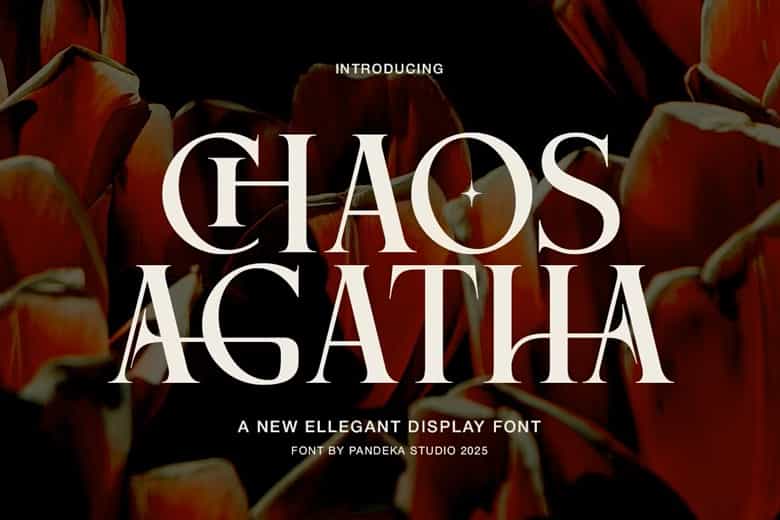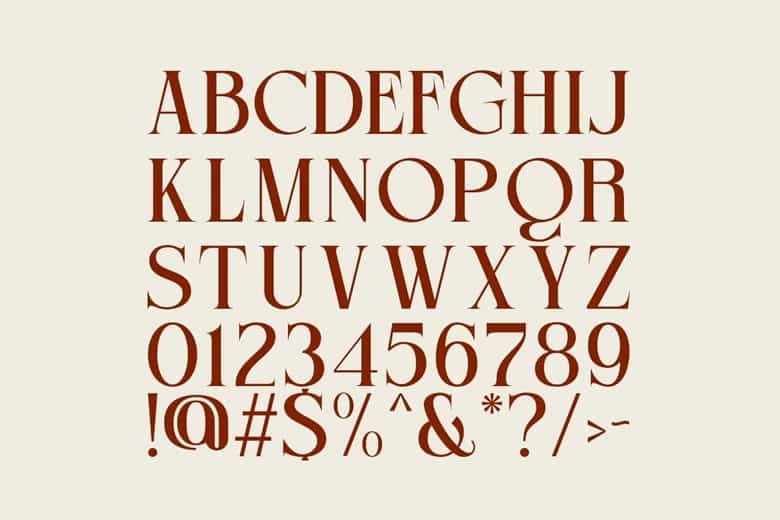
Chaos Agatha is a new display serif font with a bold character and timeless elegance. This font is designed for luxury branding, stylish lettering, high end packaging and editorial designs taught you elegance and exclusivity. A classic yet modern look makes it suitable for top notch fashion, beauty and lifestyle projects with a unique and attractive look.